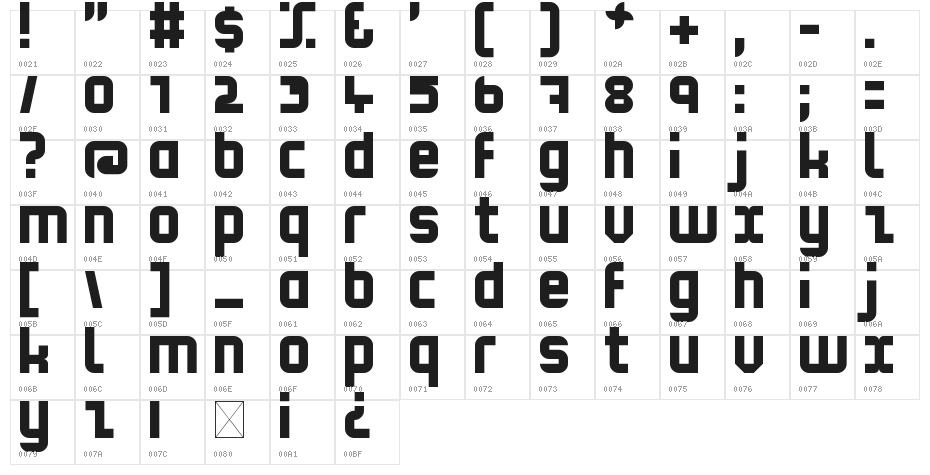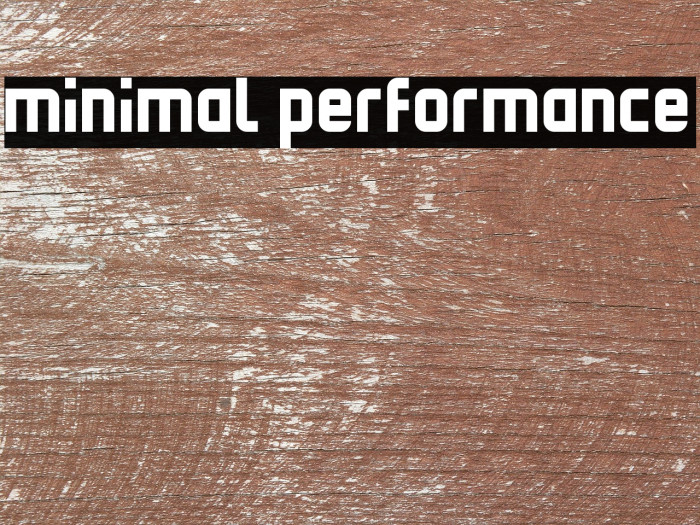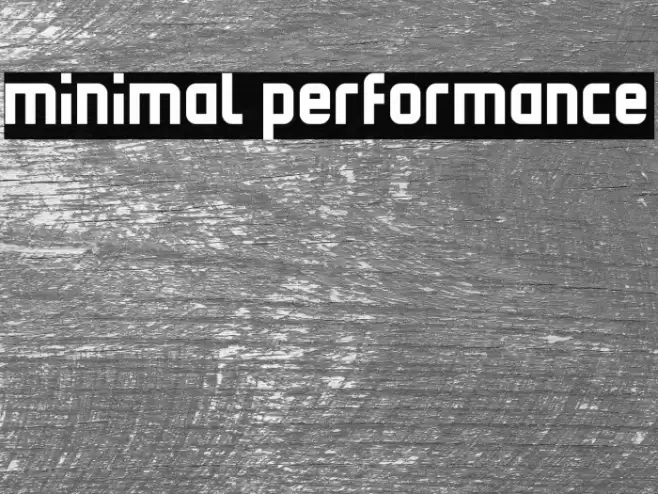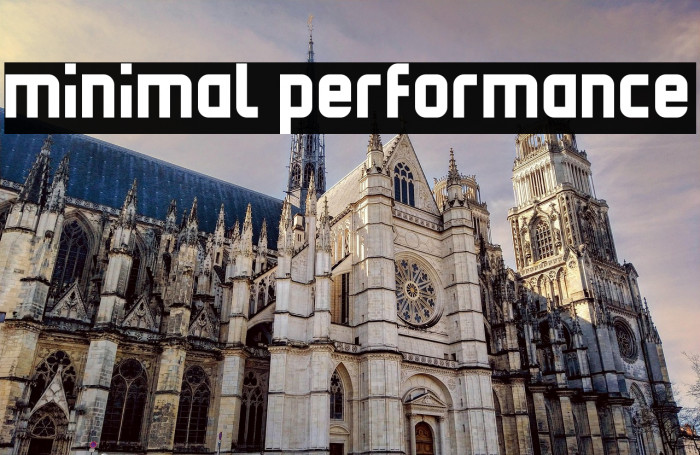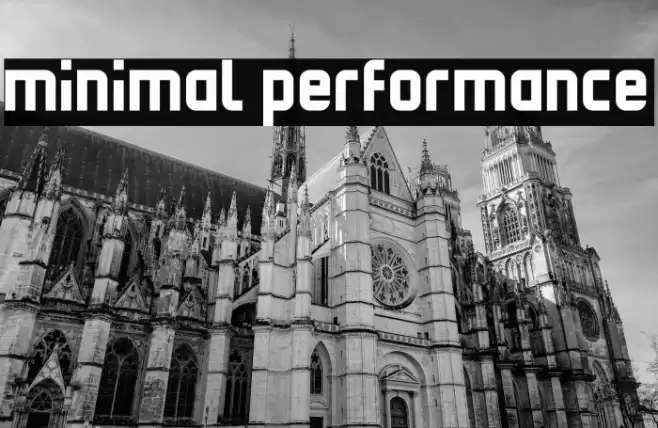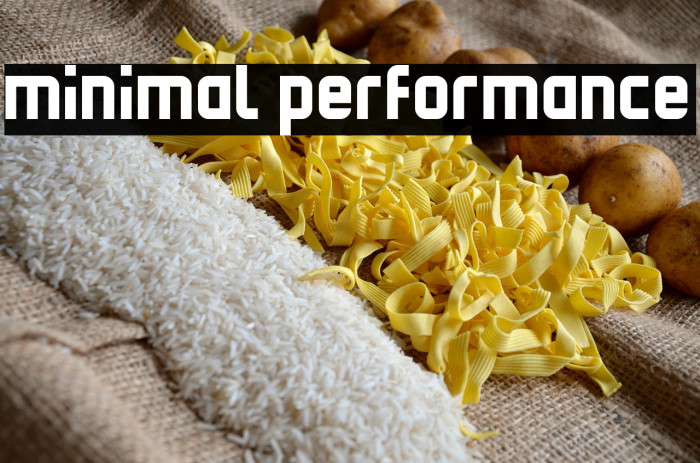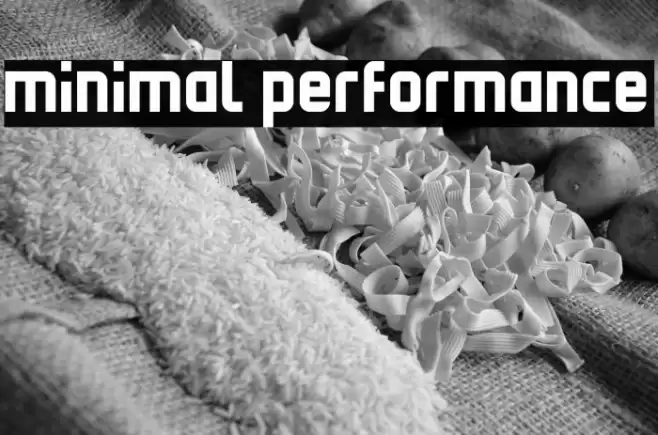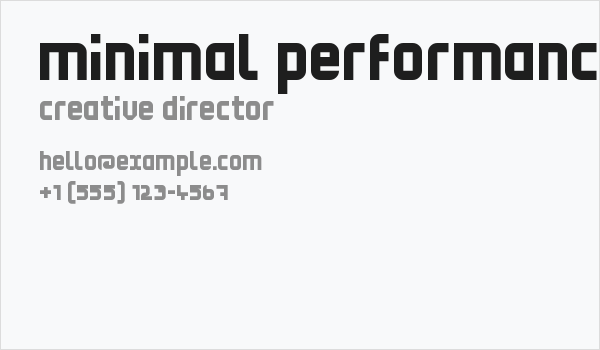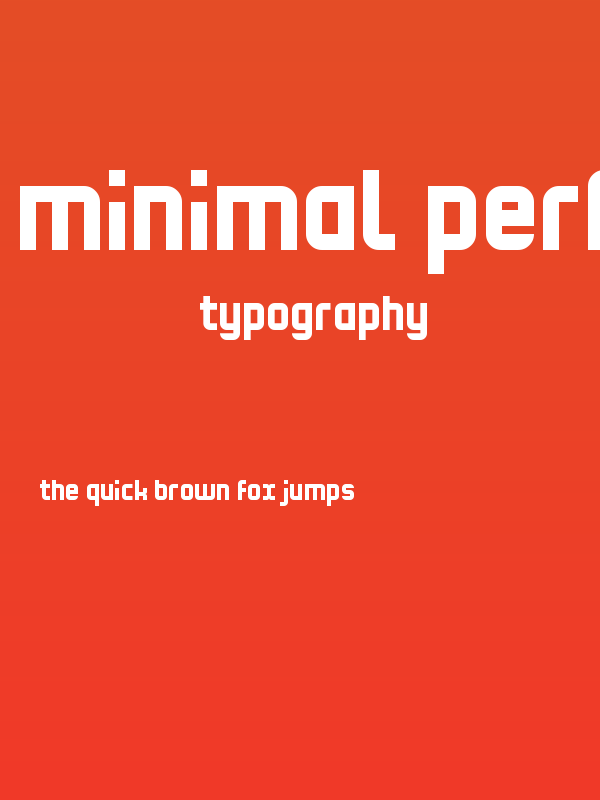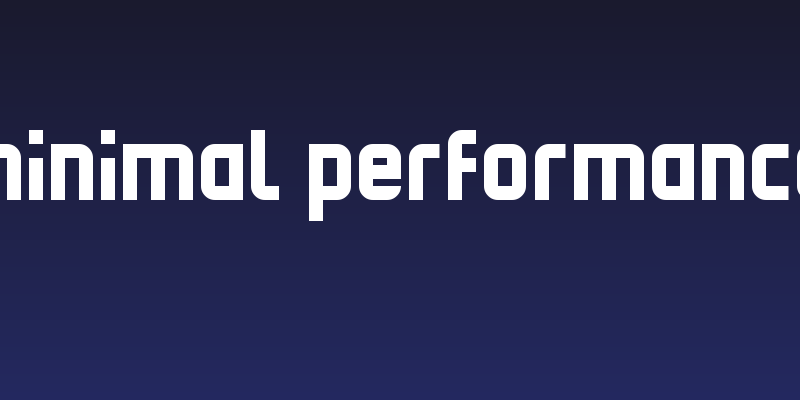
Minimal Performance Font
Minimal Performance Description
This font features a bold and geometric design with a modern aesthetic. The characters are constructed with thick, uniform strokes, giving them a strong and impactful appearance. The rounded edges and consistent line weights contribute to a cohesive and contemporary look. The font maintains a balanced proportion, ensuring readability while adding a touch of uniqueness with its slightly condensed form. The numerals and special characters are designed to match the boldness of the alphabet, making it suitable for various applications that require a striking visual presence.